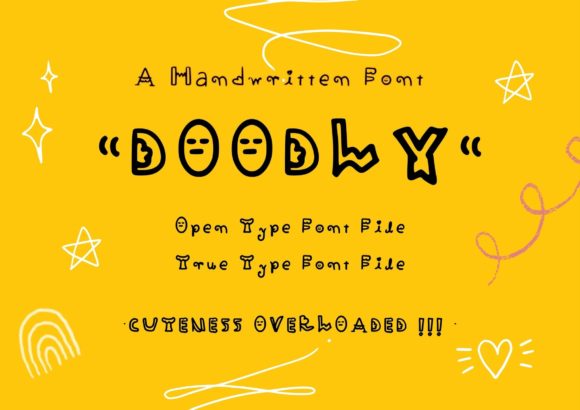
Introducing Doodly Font: The Whimsical Charm for Your Creative Endeavors!
Doodly Font, a creation of RimzStudio, is an enchanting decorative font that captivates with its playful and heartwarming charm. Designed to bring a touch of whimsy and delight to your digital creations, Doodly Font is the perfect choice for those seeking an expressive and captivating font.
Immerse yourself in a world of boundless creativity as you explore the myriad possibilities that await with Doodly Font. From back-to-school projects that spark imagination to seasonal greetings that warm the heart, this versatile font seamlessly adapts to any theme or occasion. Whether you're designing Christmas cards that exude festive cheer or creating Easter invitations adorned with playful motifs, Doodly Font effortlessly elevates your designs to new heights.
Step into a realm of endless possibilities as you unleash the magic of Doodly Font. Create heartfelt quotes that resonate with your audience, design logos that exude individuality, or craft invitations that promise an unforgettable experience. The font's captivating charm extends to stationery designs that add a personal touch to your correspondence, children's designs that ignite imaginations, and even t-shirt designs that make a bold statement.
With Doodly Font, the boundaries of creativity dissolve, allowing you to weave your artistic vision into reality. Transform packaging designs into eye-catching masterpieces, breathe life into posters with captivating typography, and let your imagination run wild as you create typographic designs that leave a lasting impression. Doodly Font isn't just a font; it's an invitation to explore the depths of your creativity and share your unique perspective with the world.